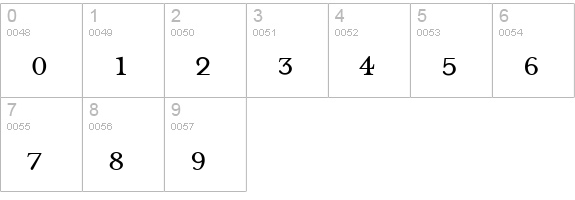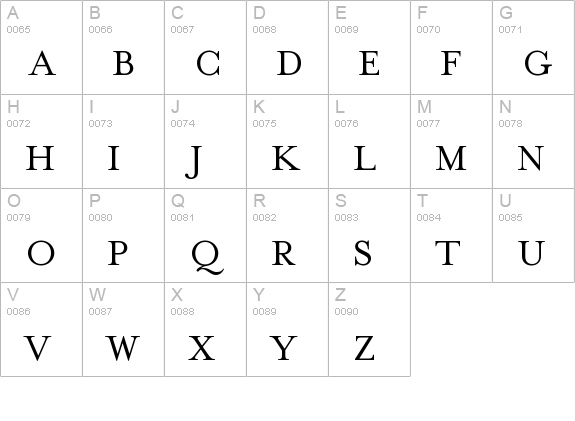
MrsEavesSmallCaps Font Details
MrsEavesSmallCaps is a classic and elegant font that exudes sophistication and charm. With its delicate serifs and balanced proportions, this typeface brings a timeless beauty to any design project. The small caps version of Mrs Eaves adds a touch of refinement and professionalism to your text, making it ideal for use in headings, titles, and branding materials. What's even better is that MrsEavesSmallCaps is available for free download at FontsMarket.com. Whether you're working on a print design, digital project, or anything in between, you can easily access this exquisite font to elevate your work and make a lasting impression. Don't miss out on the opportunity to enhance your typography with MrsEavesSmallCaps – download it now and let your creativity shine!